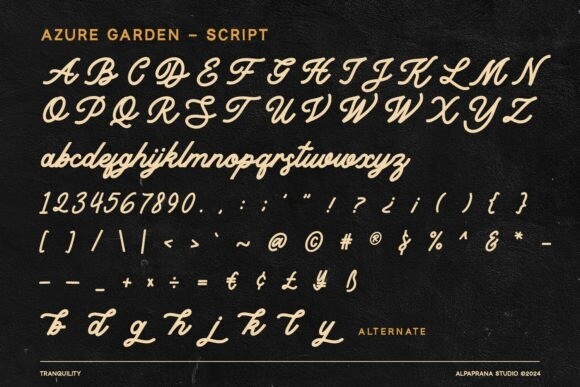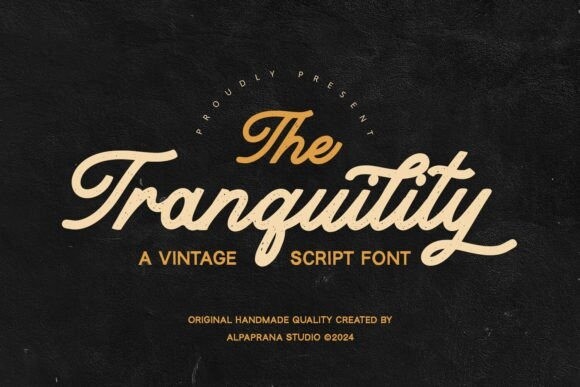
Tranquility Font
Tranquility Font is a charming vintage handwritten script font that evokes nostalgia and warmth. Its elegant curves and gentle strokes exude a sense of timeless beauty and sophistication. Perfect for invitations, branding, and vintage-themed designs, Tranquility adds a touch of grace and refinement to any project, captivating audiences with its allure.